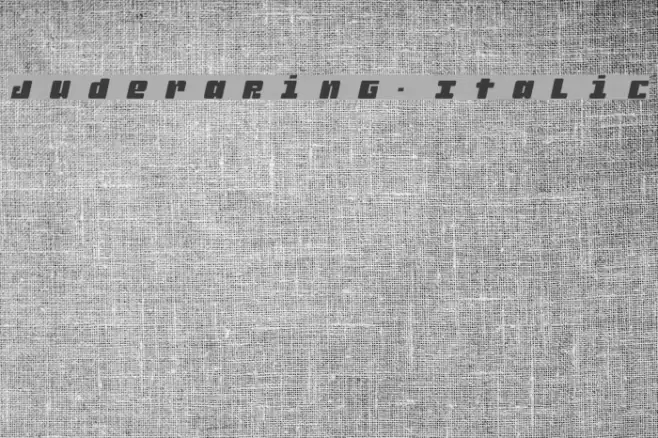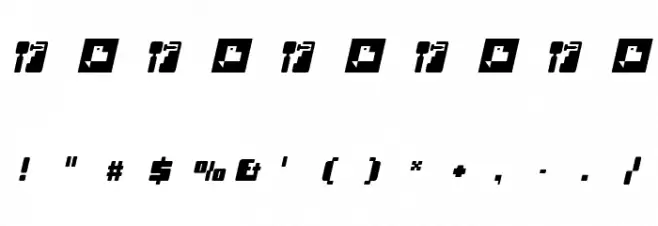
JuderaRing-Italic Font
JuderaRing-Italic Description
This font features a bold and dynamic style with a distinct italic slant, giving it a sense of motion and energy. The characters are blocky and geometric, with sharp angles and a strong presence. The uppercase and lowercase letters maintain a consistent design, ensuring readability while adding a unique flair. The numbers and special characters follow the same bold and angular aesthetic, making them stand out. This font is ideal for projects that require a modern and edgy look, such as sports branding, video game titles, or dynamic posters.
A bold, italic, and geometric font with a dynamic and modern style from Uncategorized fonts.
- Proposed Projects: Ideal for sports branding, video game titles, dynamic posters, and edgy graphic designs.